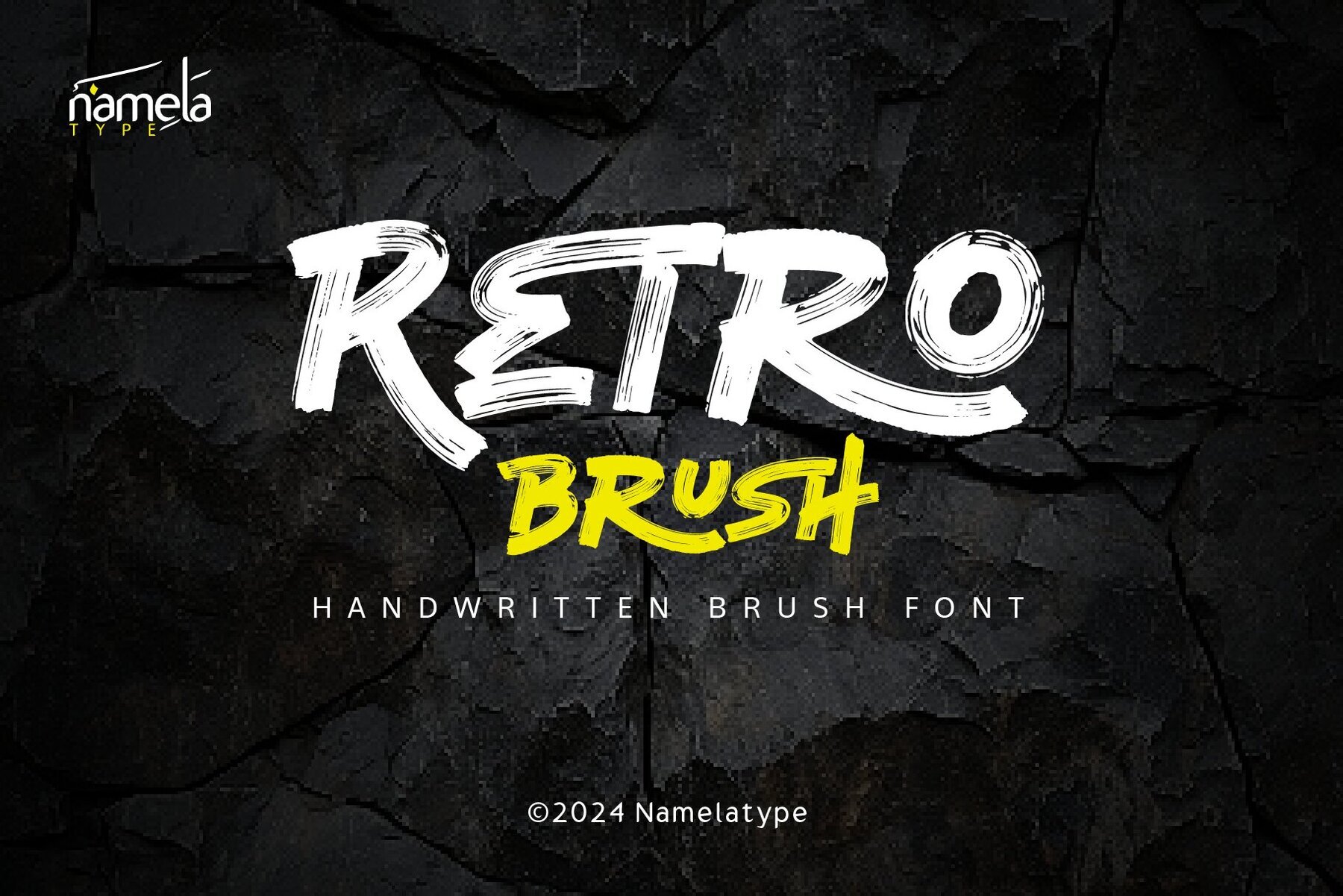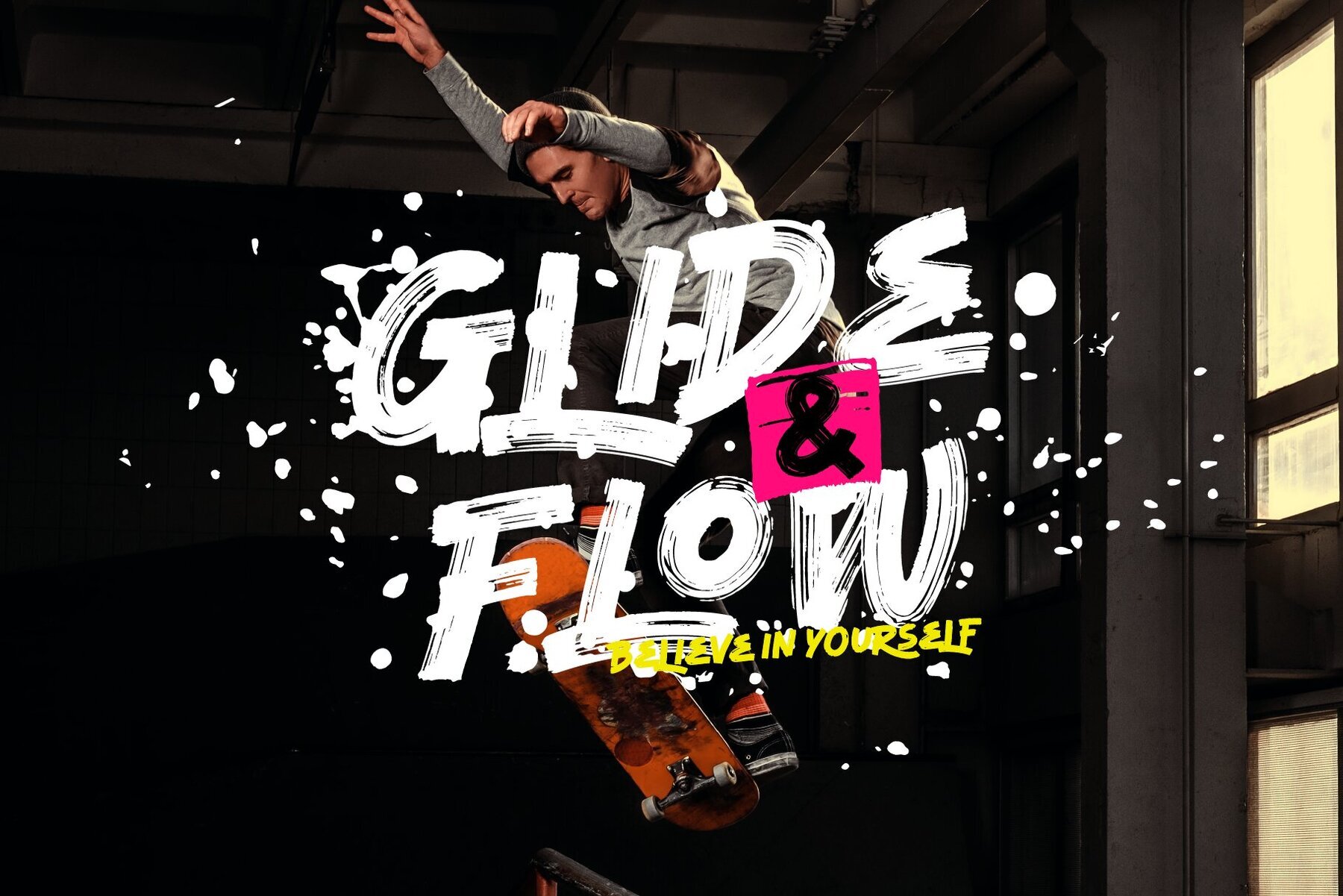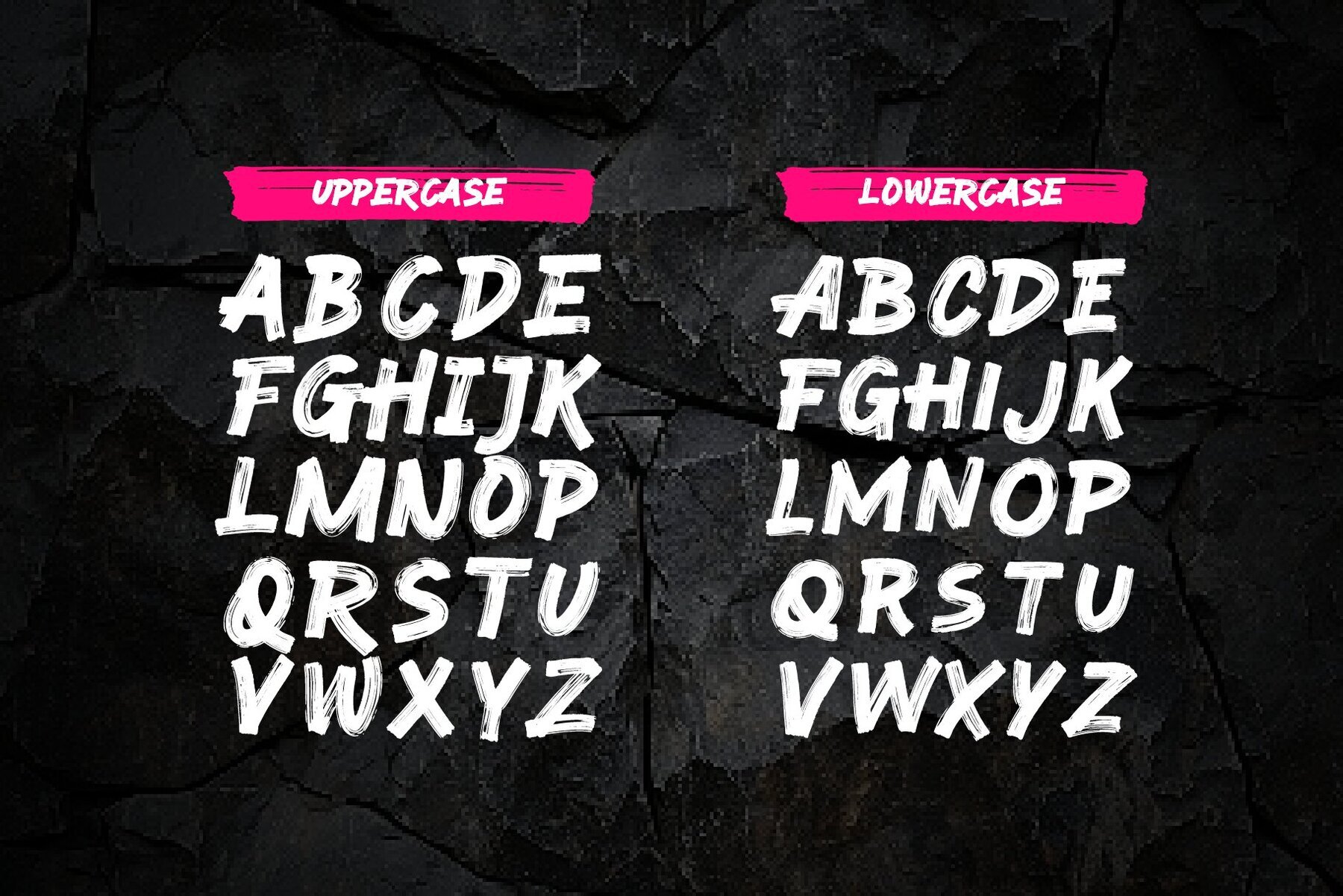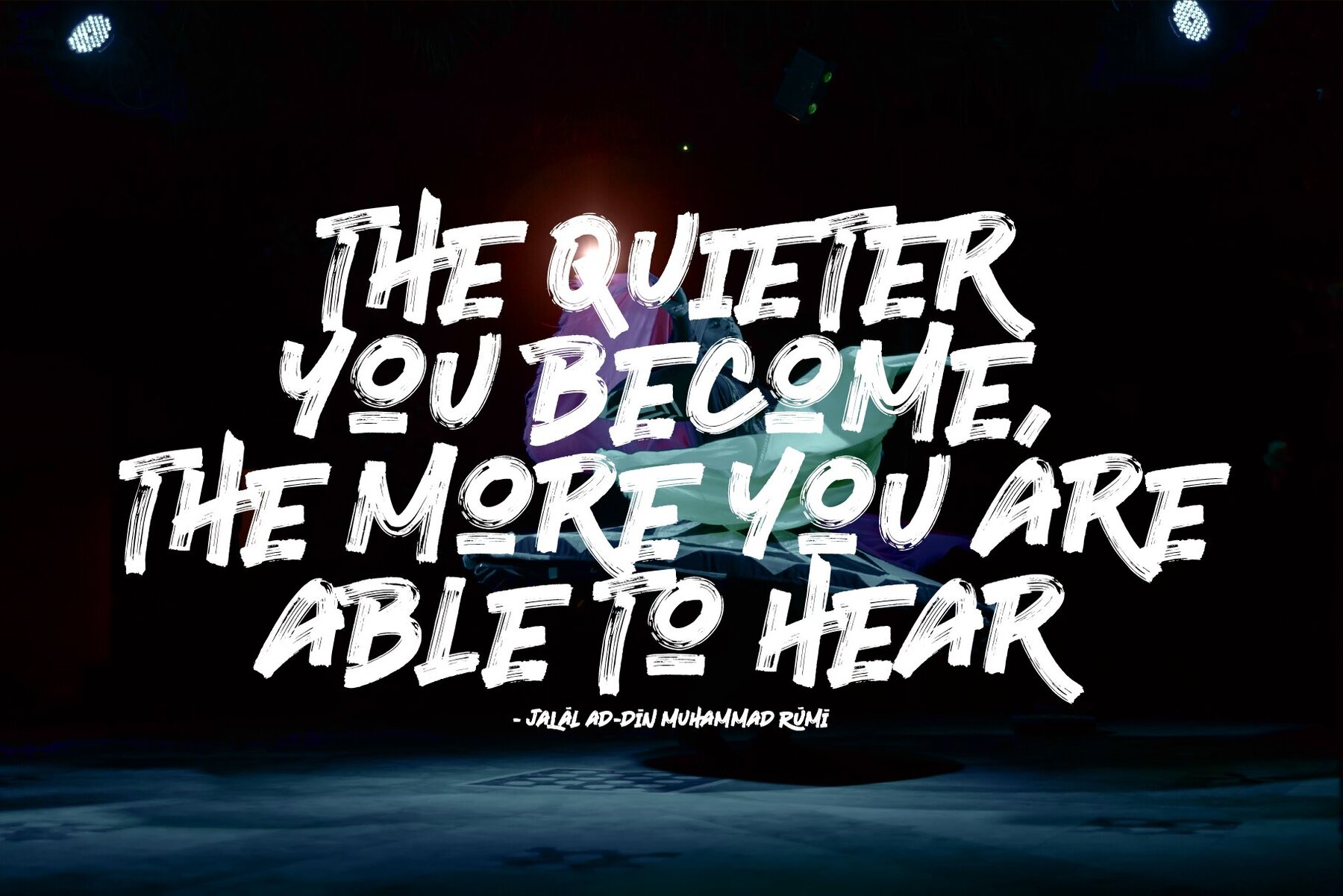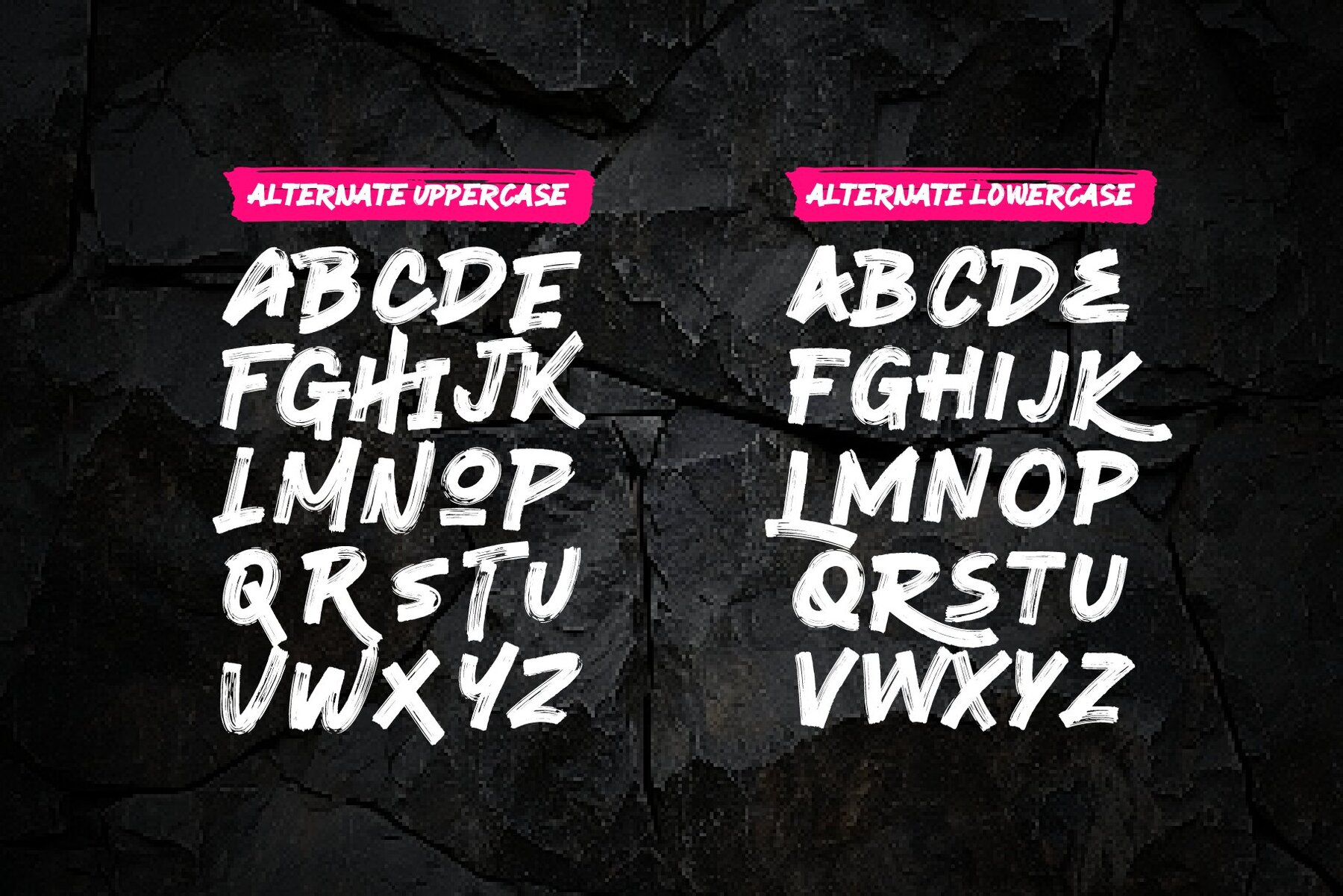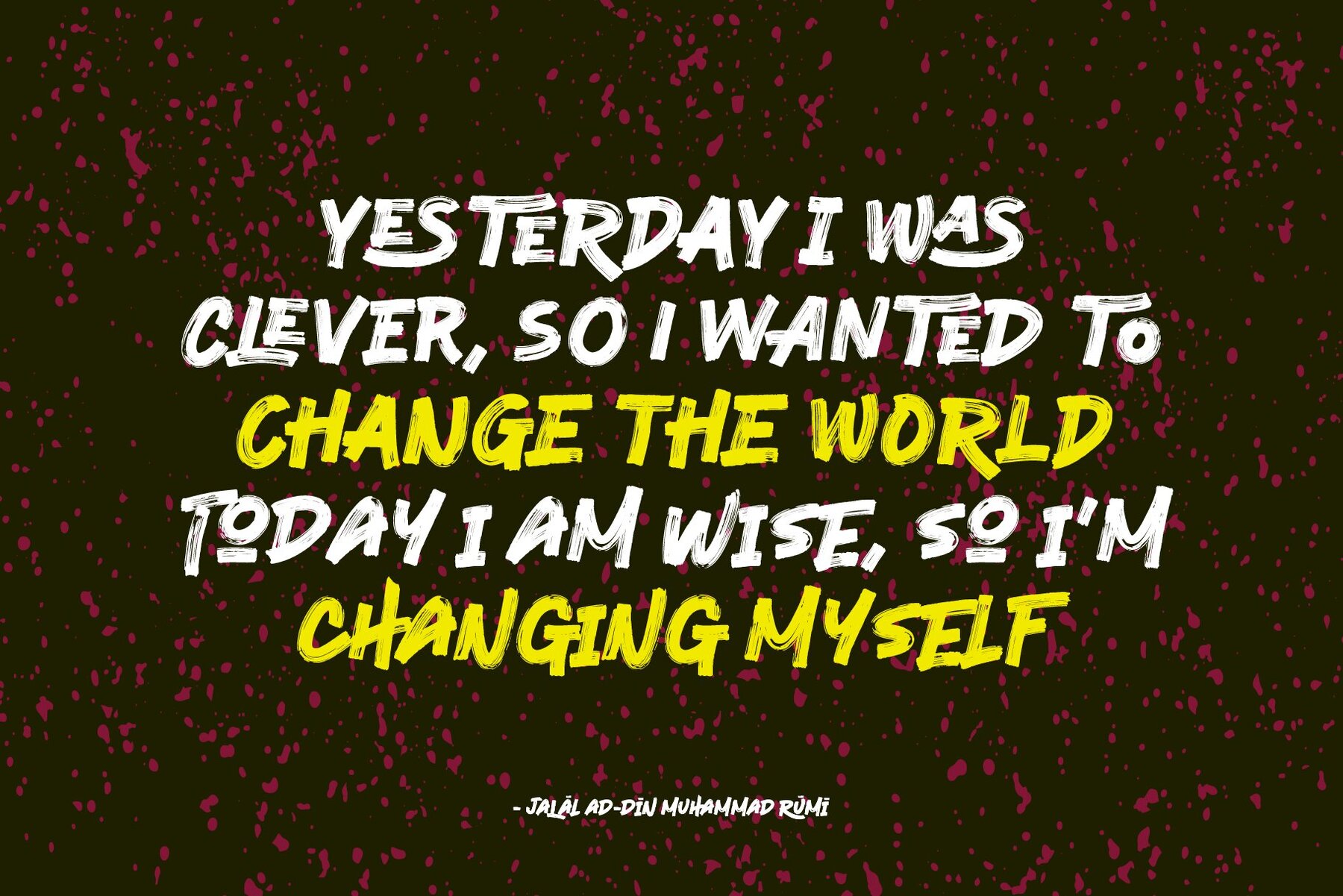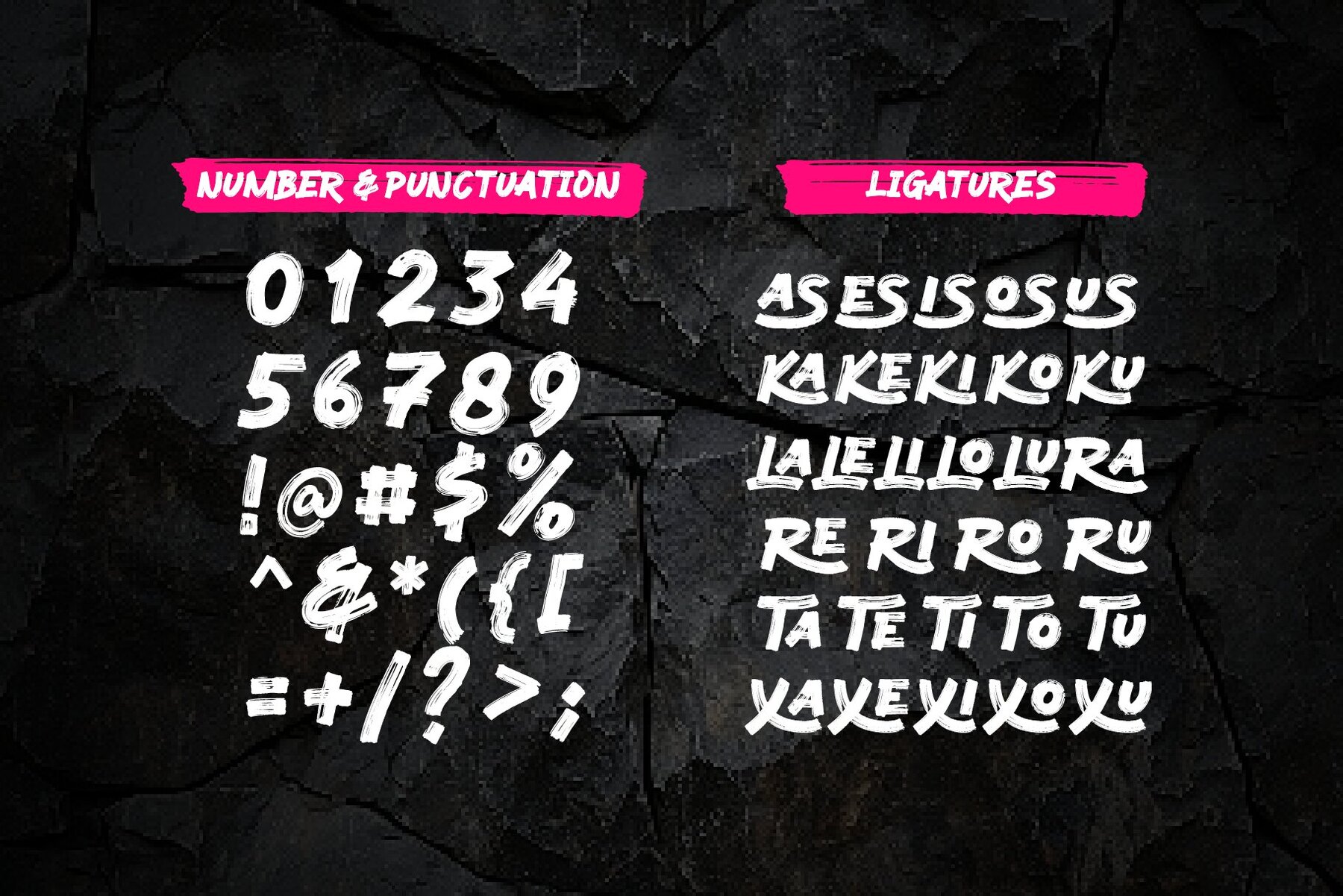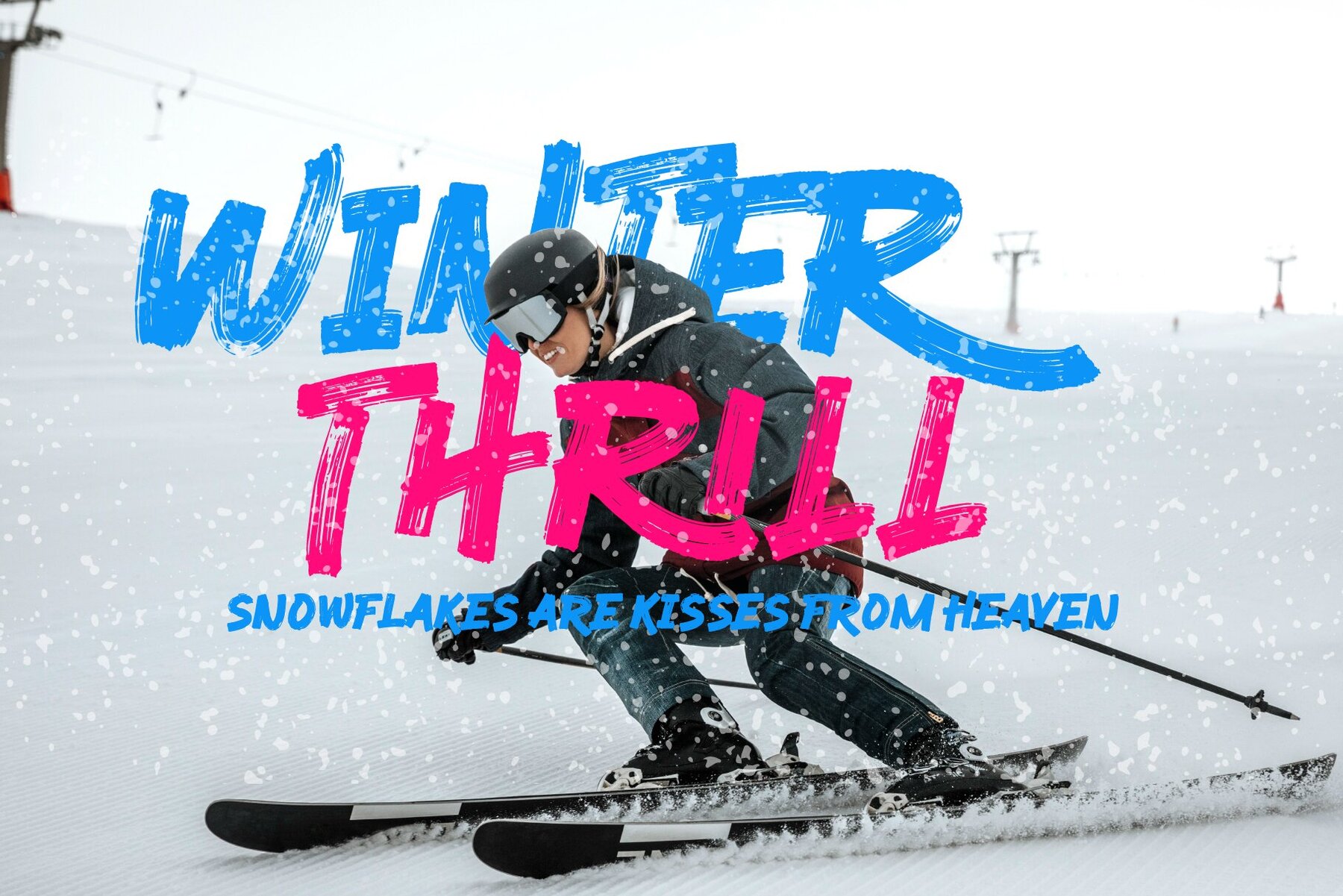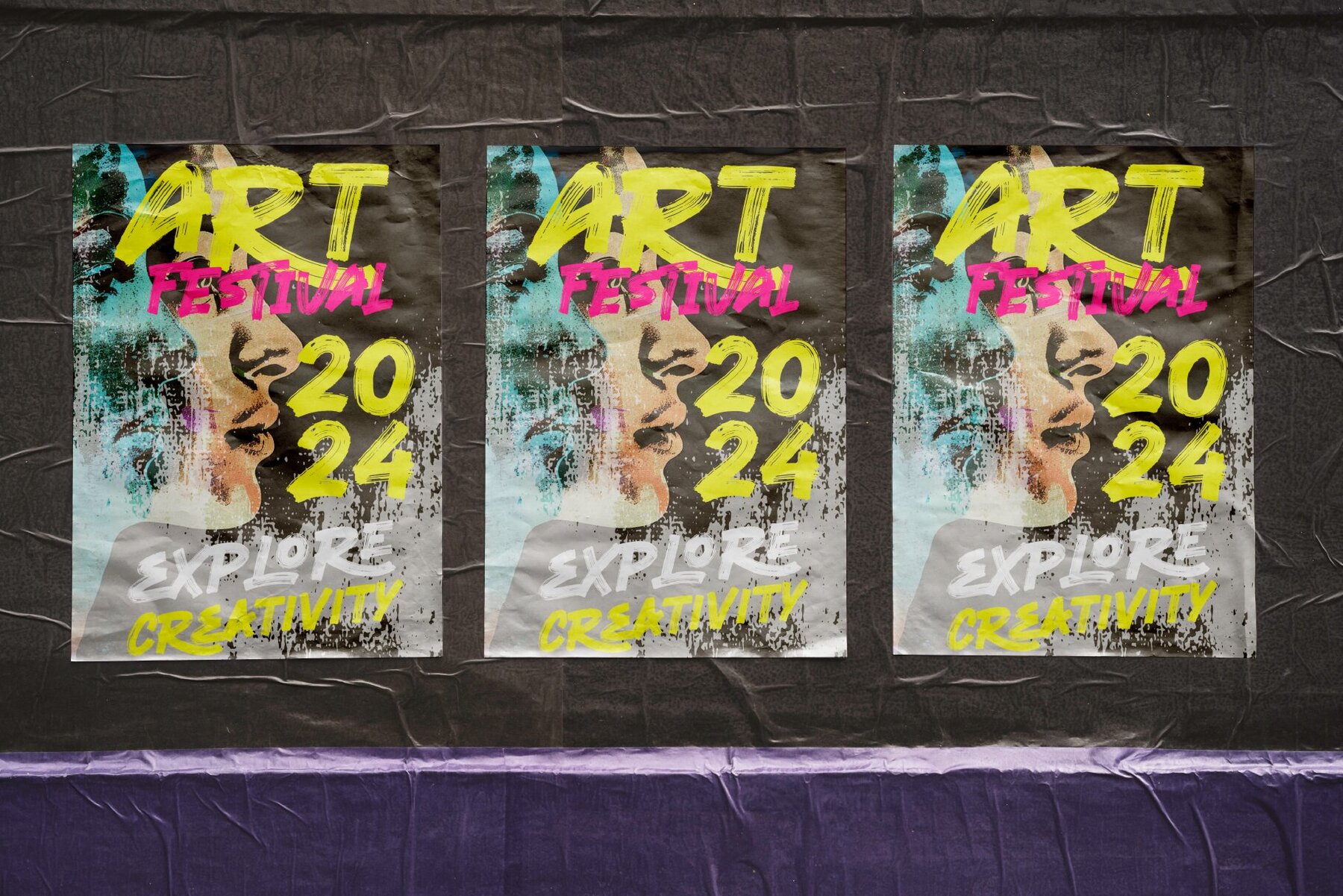
Retro Brush Font
Retro Brush Regular
Retro Brush Alternate
Retro Brush is a handwritten brush font characterized by its dry brush stroke style, which imparts a delightful texture and fluidity. It includes a variety of alternates and ligatures to enhance its handwritten appearance. Perfect for use in header text, poster designs, logos, product packaging, merchandise, album covers, and much more.